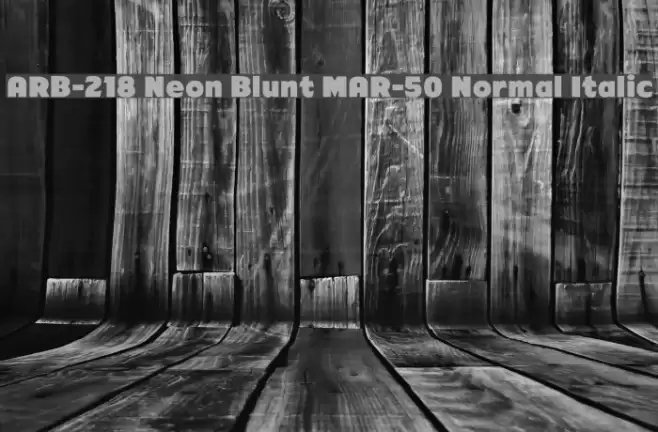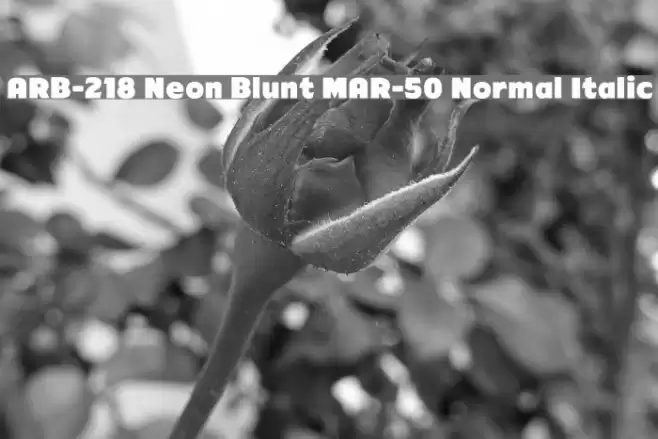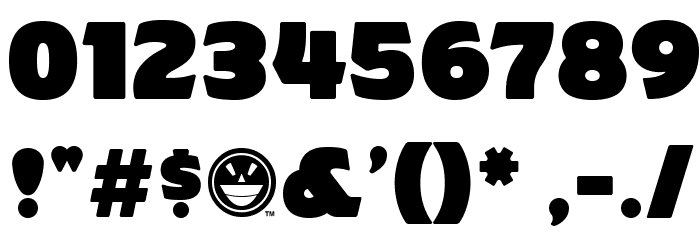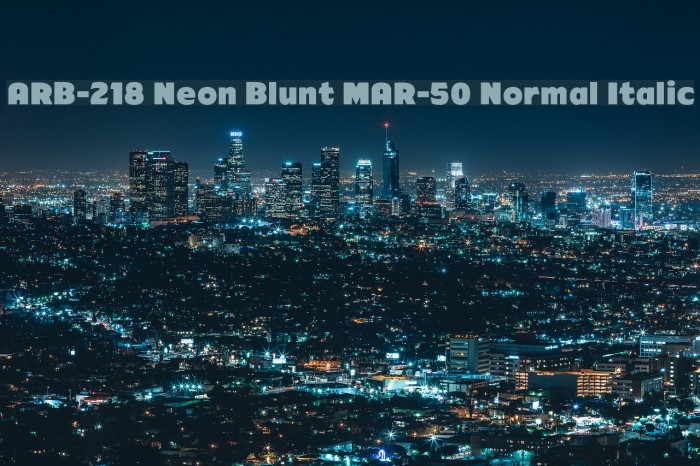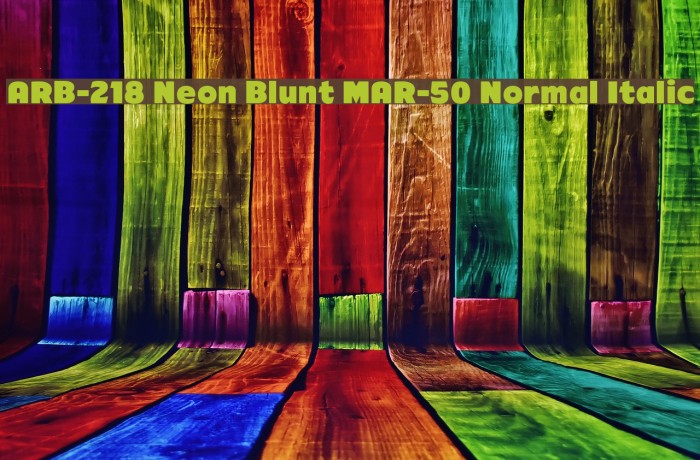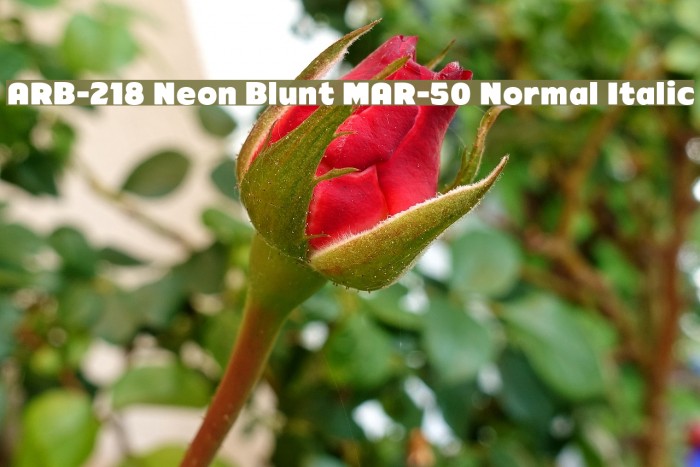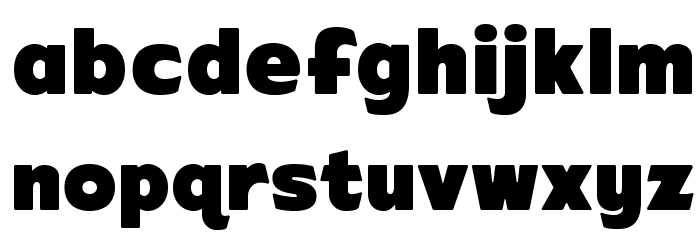
ARB-218 Neon Blunt MAR-50 Normal Italic Font
ARB-218 Neon Blunt MAR-50 Normal Italic Description
This bold and impactful font features thick, rounded letterforms that convey a sense of strength and modernity. The uppercase and lowercase characters maintain a consistent weight, providing a uniform appearance across all text. The numbers and special characters are equally robust, ensuring readability and emphasis. The font's design is straightforward yet striking, making it suitable for attention-grabbing headlines and branding materials. Its playful yet assertive style can add a unique touch to any project, balancing between a modern aesthetic and a classic boldness.
A bold, rounded font with a modern and impactful style from Uncategorized fonts.
- Proposed Projects: Ideal for headlines, posters, branding, and advertising materials.